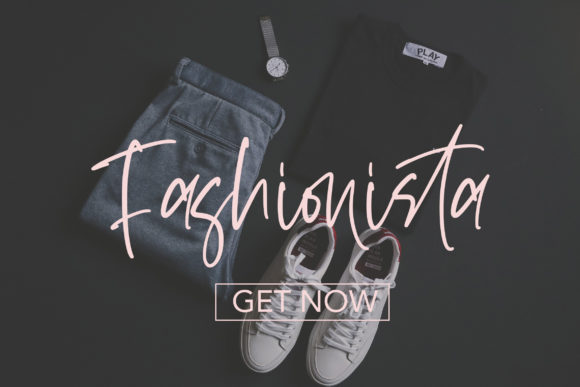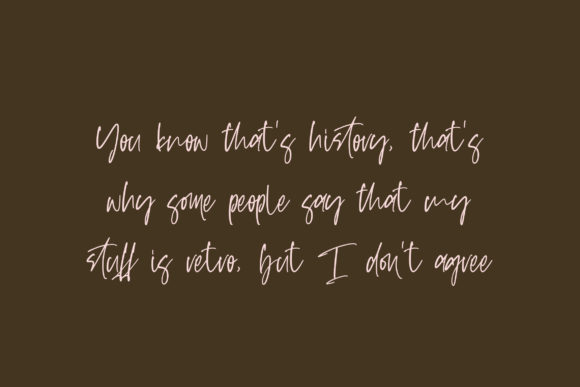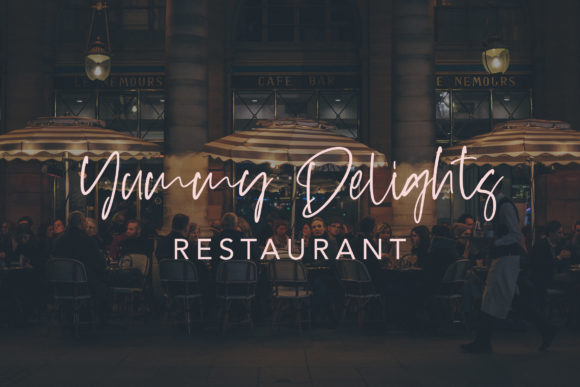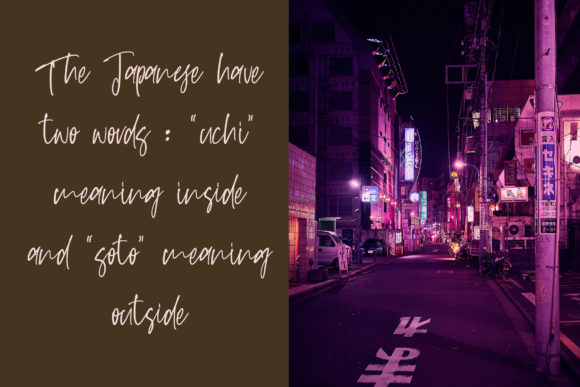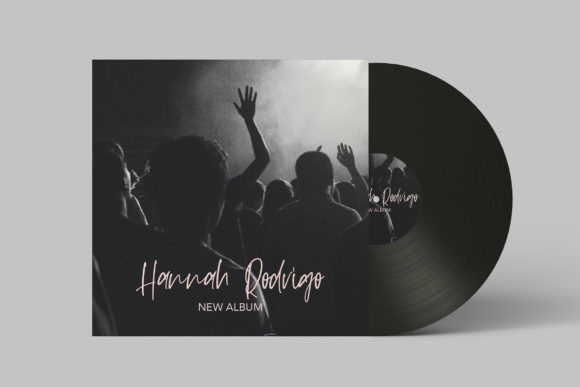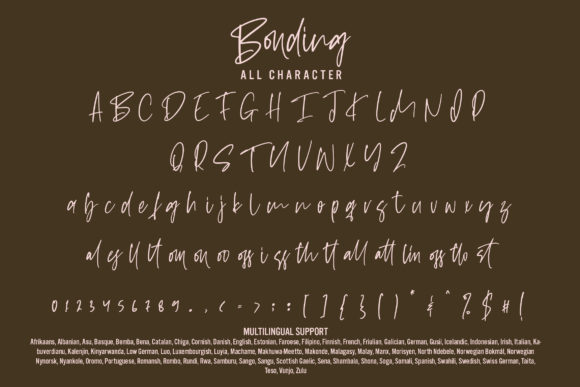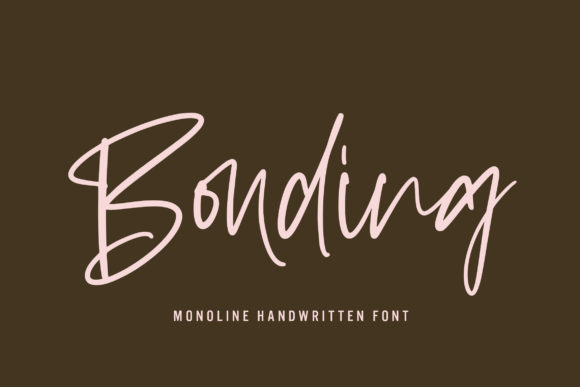
Bonding Font: Elevate Your Designs with Elegance and Sophistication
In the world of typography, few fonts manage to convey the same level of elegance and sophistication as Bonding Font. This stunning script font has captured the hearts of designers and crafters alike, and for good reason. With its flowing lines, intricate details, and beautiful handwritten aesthetic, Bonding Font is the perfect choice for adding a touch of luxury to any design project.
The Perfect Font for Wedding and Event Designs
One of the most popular uses for Bonding Font is in wedding and event designs. Whether you’re creating invitations, thank you cards, or other stationery, this font is sure to impress. Its elegant script style evokes a sense of romance and sophistication, making it perfect for formal events and special occasions. Imagine setting the tone for your wedding with a beautifully designed invitation featuring Bonding Font – it’s sure to leave a lasting impression on your guests.
Beyond Wedding Designs: Exploring Other Uses for Bonding Font
While Bonding Font is certainly well-suited to wedding and event designs, its uses don’t stop there. This versatile font can be used in a wide range of design projects, including:
• Quotes and posters: Add a touch of elegance to your inspirational quotes and posters with Bonding Font.
• Greeting cards: Create beautiful and heartfelt greeting cards for special occasions like birthdays, anniversaries, and holidays.
• Logos and branding: Use Bonding Font to create a sophisticated and memorable logo for your business or brand.
• Business cards: Elevate your business cards with a touch of elegance and professionalism.
Why Designers and Crafters Love Bonding Font
So why has Bonding Font become a favorite among designers and crafters? Here are just a few reasons:
• Elegance and sophistication: Bonding Font exudes luxury and refinement, making it perfect for high-end designs.
• Versatility: This font can be used in a wide range of design projects, from wedding stationery to logos and branding.
• Easy to read: Despite its intricate details, Bonding Font is surprisingly easy to read, making it perfect for body text and longer designs.
• Unique and distinctive: Bonding Font has a unique and distinctive style that sets it apart from other script fonts.
Tips for Using Bonding Font in Your Designs
To get the most out of Bonding Font, here are a few tips to keep in mind:
• Use it sparingly: While Bonding Font is certainly beautiful, it can be overwhelming if used too much. Use it sparingly to add a touch of elegance to your designs.
• Pair it with complementary fonts: Bonding Font pairs beautifully with clean, sans-serif fonts like Arial or Helvetica.
• Experiment with colors: Bonding Font looks stunning in a range of colors, from metallic gold and silver to rich jewel tones.
Font Name Bonding Font
Author Arendxstudio
In conclusion, Bonding Font is a truly special font that can elevate any design project with its elegance and sophistication. Whether you’re a designer, crafter, or simply someone who appreciates beautiful typography, Bonding Font is definitely worth checking out. With its versatility, readability, and unique style, it’s no wonder that Bonding Font has become a favorite among designers and crafters. So why not give it a try and see the difference it can make in your designs?